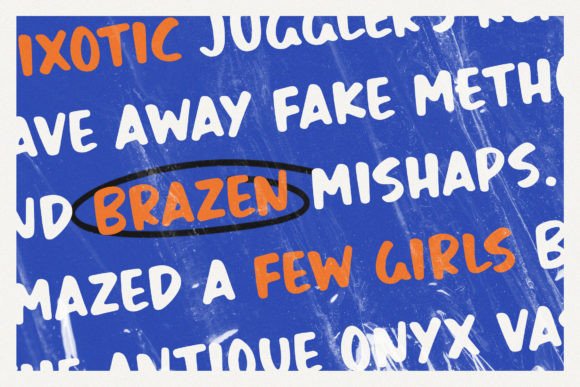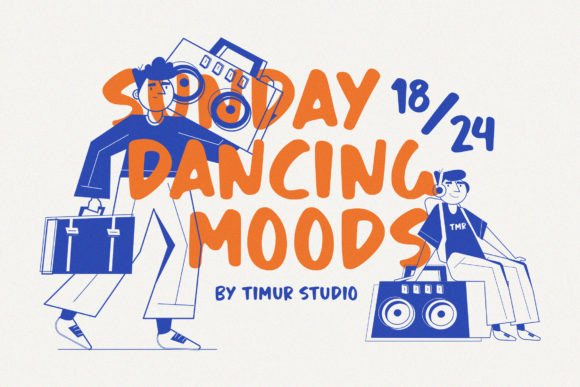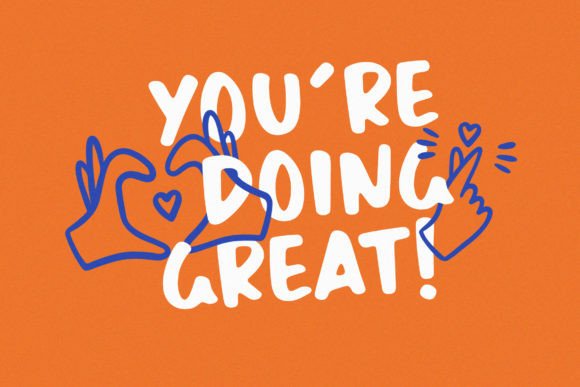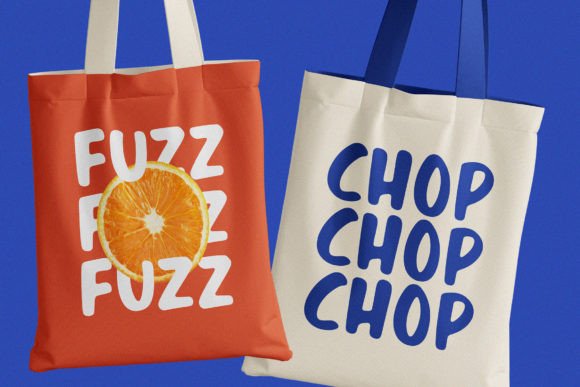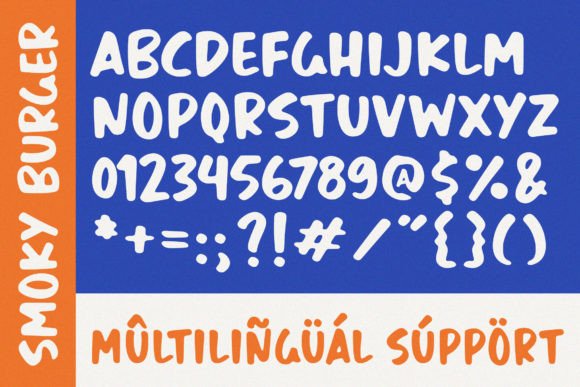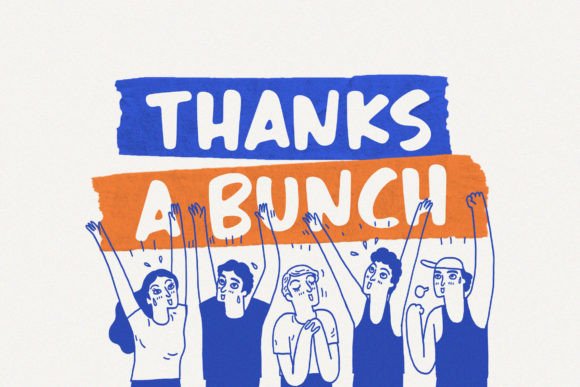
Introduction to Smoky Burger Font
Remember that moment when you stumbled upon the perfect typography for your design project, and it all came together in a beautiful, cohesive way? That’s exactly what we’re about to dive into with the Smoky Burger Font, a bold and flavorful choice that’s sure to elevate your creative project.
Whether you’re working on a food-related project, such as a menu or packaging design, or simply looking for a unique and eye-catching display font, the Smoky Burger Font is a valuable resource that’s worth getting to know. With its handcrafted letterforms and playful curves, this font is perfect for designers who want to add a touch of warmth and charm to their designs, and with a high-quality, free download available, it’s an accessible design resource that’s sure to become a staple in your creative arsenal.
Key Features of Smoky Burger Font
- Unique, hand-drawn design with a smoky, distressed effect, perfect for creative projects.
- High-quality font with a transparent background, ideal for use on various design resources.
- Perfect for use in logos, branding, and packaging design, adding a unique touch to your creative project.
Honest Review: Smoky Burger Font
One of the standout features of the Smoky Burger Font is its transparent background, which allows for seamless integration with any design. The font is well-suited for use in branding, logos, and even digital products. ✨
The font’s unique design elements and bold lines make it an excellent choice for those who want to add a touch of sophistication to their design. Here are some key features that work well:
- High-quality design that’s perfect for branding and logos
- Unique design elements and bold lines
- Only available in a single weight
- Not suitable for text-heavy designs
- May not be compatible with all operating systems
Overall, I’m impressed with the Smoky Burger Font. While it has some limitations, it’s a great free download that can add a high-quality touch to any design. I’d definitely recommend it for creative projects that require a bold and sophisticated font.
Tips for Getting the Most Out of Smoky Burger Font
The Smoky Burger Font is perfect for designers working on creative projects, such as menus, posters, and social media graphics. Its high-quality design and transparent background make it easy to use as a design element in a variety of projects.
Is the Smoky Burger Font available in different font styles?
Yes, the Smoky Burger Font is available in a single style, but it includes a range of characters, including uppercase and lowercase letters, numbers, and punctuation marks. If you’re looking for a more extensive font family, you may want to consider purchasing a commercial font or exploring other free design resources.